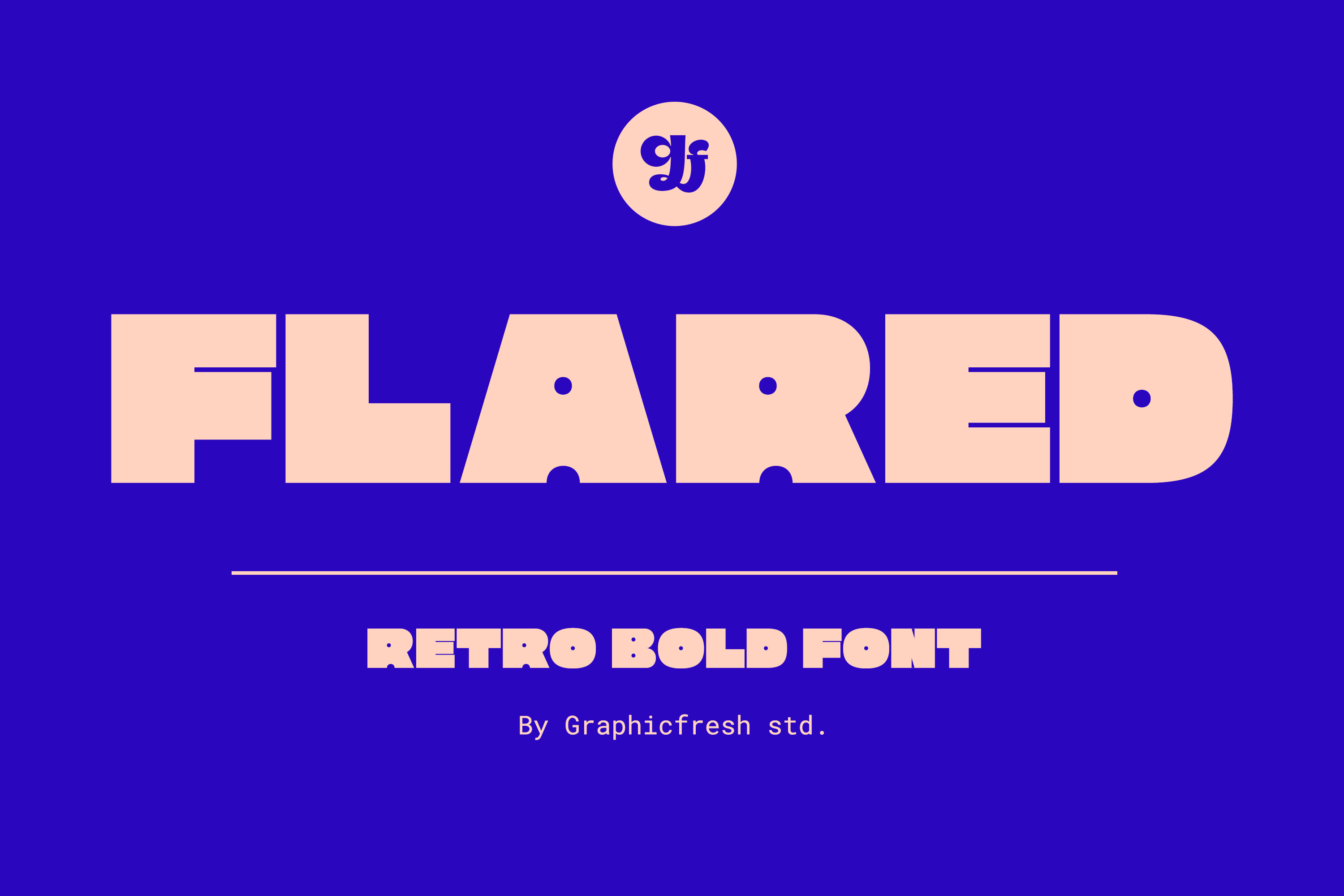
Flared - The Bold Retro Font
A groovy, bold typeface that transports you back to the 70s and 80s. Its sleek curves and sharp angles evoke the spirit of neon signs and vintage design. Get ready to captivate with this striking font that exudes nostalgic coolness.
Let your words boogie and groove across any medium with Flared. Its chunky and rebellious style adds an unmistakable retro flair to your projects, capturing the essence of the disco era. Whether you're designing posters, creating logos, or crafting eye-catching headlines, Flared ensures your message stands out with bold confidence. Get ready to embrace the past and ignite your creativity with this timelessly cool typeface. Let the vibes of nostalgia take over, and watch your designs come alive with Flared.